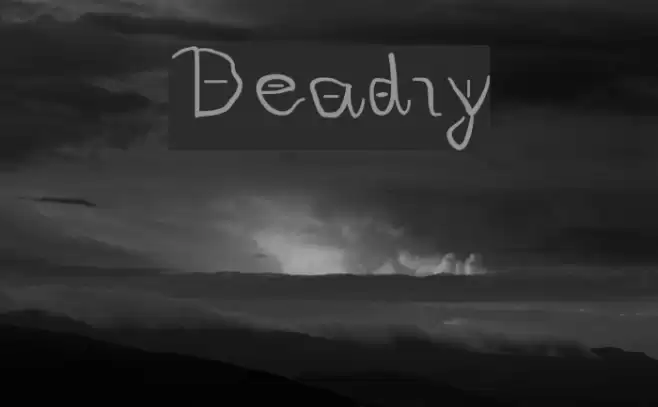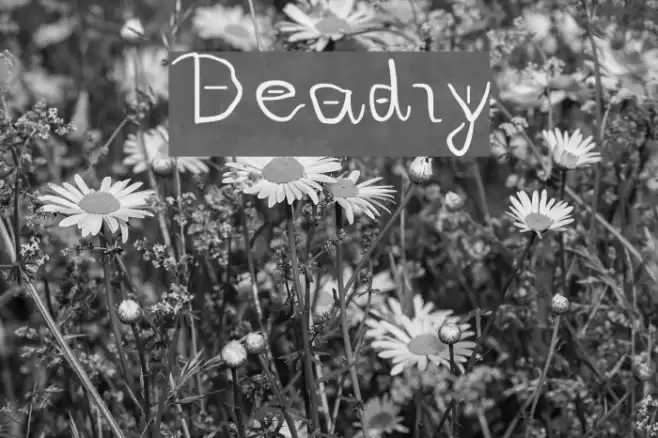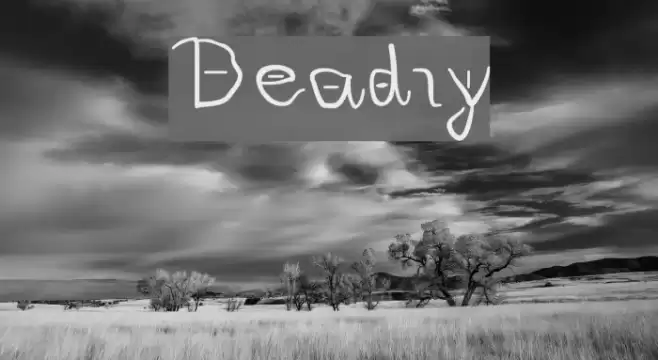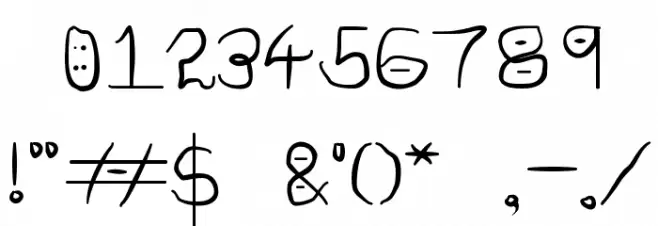
Deadly Font
Deadly Description
This font features a playful and quirky handwritten style, characterized by its uneven strokes and whimsical curves. The letters have a casual, informal appearance, with some characters displaying unique, unexpected twists and turns. The numbers and special characters maintain this playful aesthetic, adding to the font's overall charm. The irregularity in line thickness and the slightly tilted orientation of some characters contribute to its distinctive, artistic feel.
A playful, quirky handwritten font with whimsical curves and uneven strokes from Uncategorized fonts.